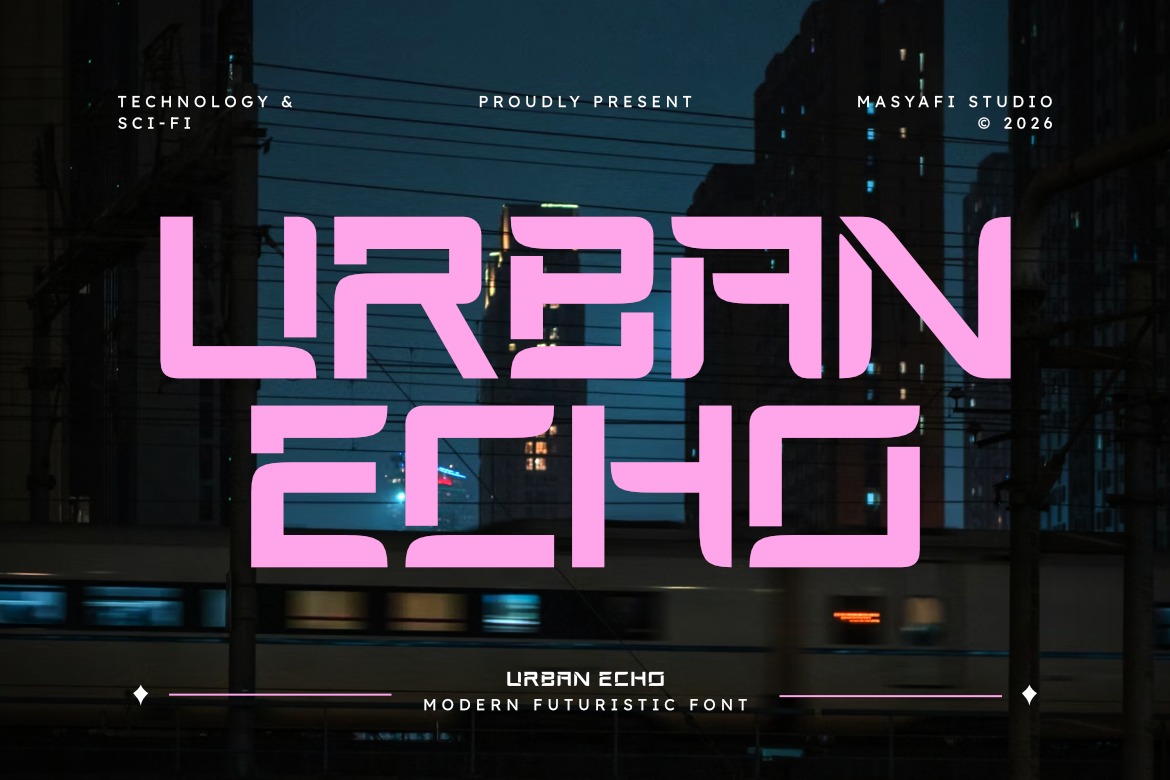
Urban Echo Font
Urban Echo Font is a premium-quality font developed to enhance your work with a polished, modern, and visually elevated look. Urban Echo is a cutting-edge futuristic font designed to capture the vibrant, fast-paced energy of the modern cityscape. With its unique geometric cuts and stencil-inspired architecture, this typeface strikes a perfect balance between high-tech precision and urban grit.
Ideal for technology branding, sci-fi movie titles, gaming interfaces, and progressive streetwear designs, Urban Echo ensures a bold and innovative presence. Its clean yet complex letterforms make it a standout choice for headlines and logos that need a forward-thinking aesthetic.